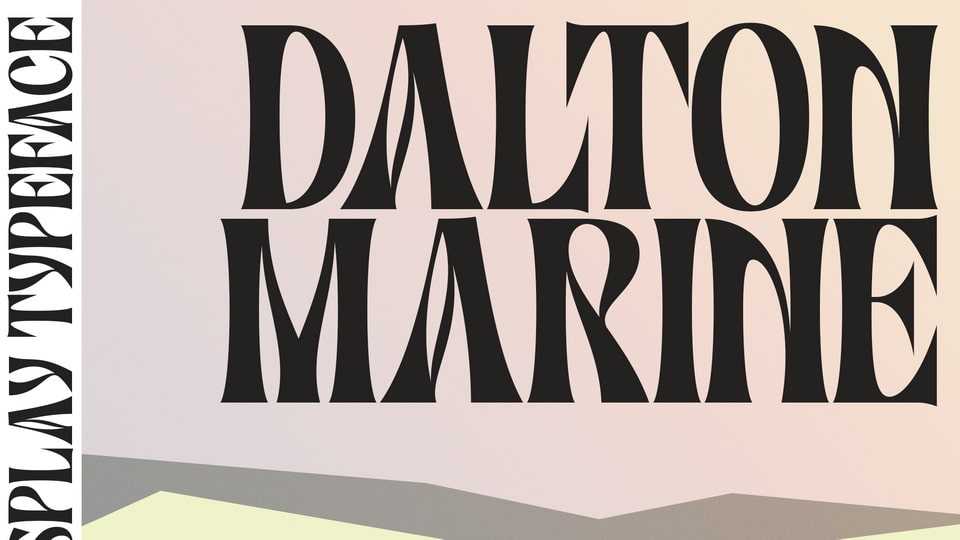
Download Dalton Marine font, an absolutely elegant serif typeface designed for display use. Dalton Marine font will elevate a wide range of crafting ideas, from cards to branding, labels, and more.